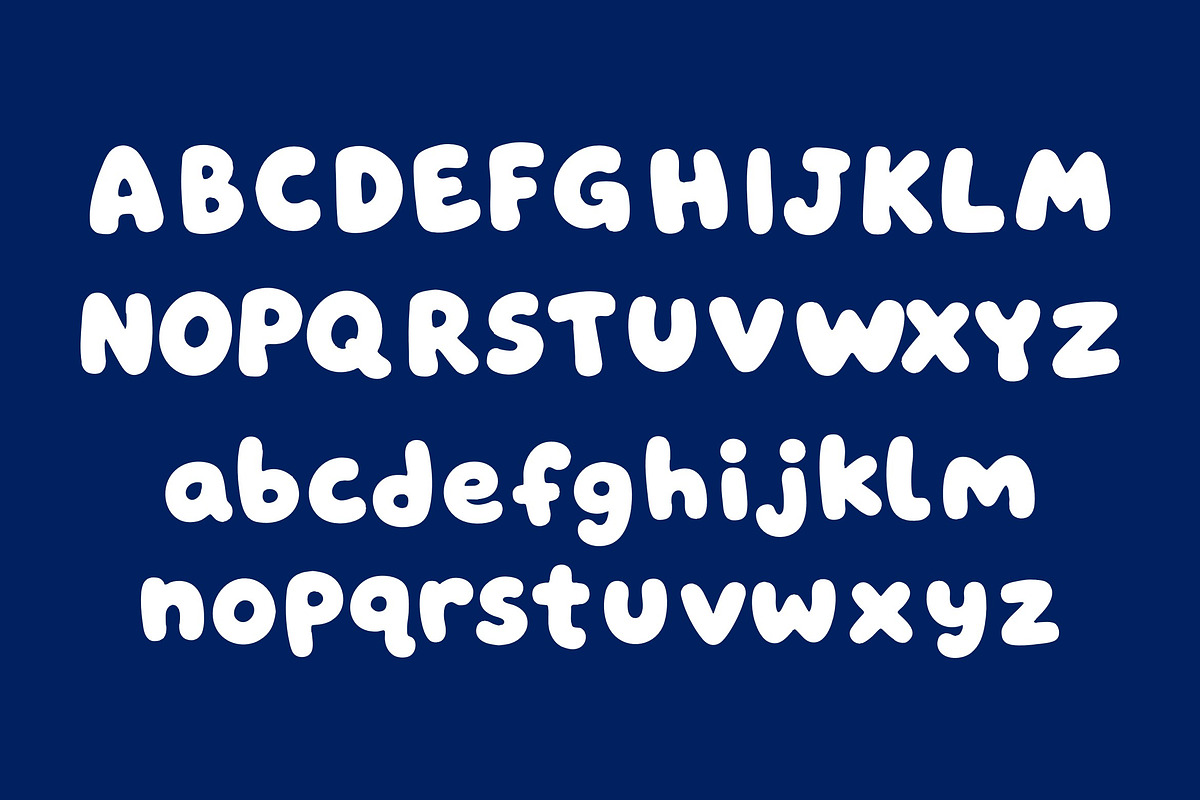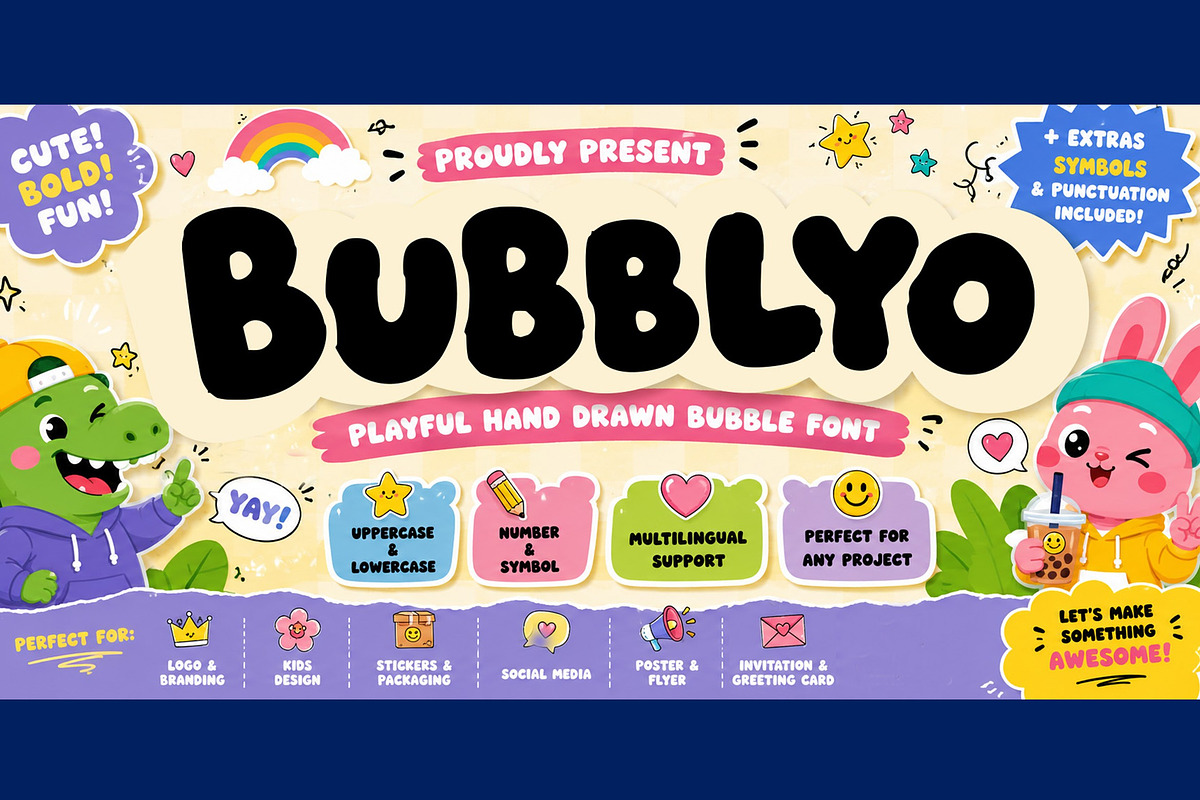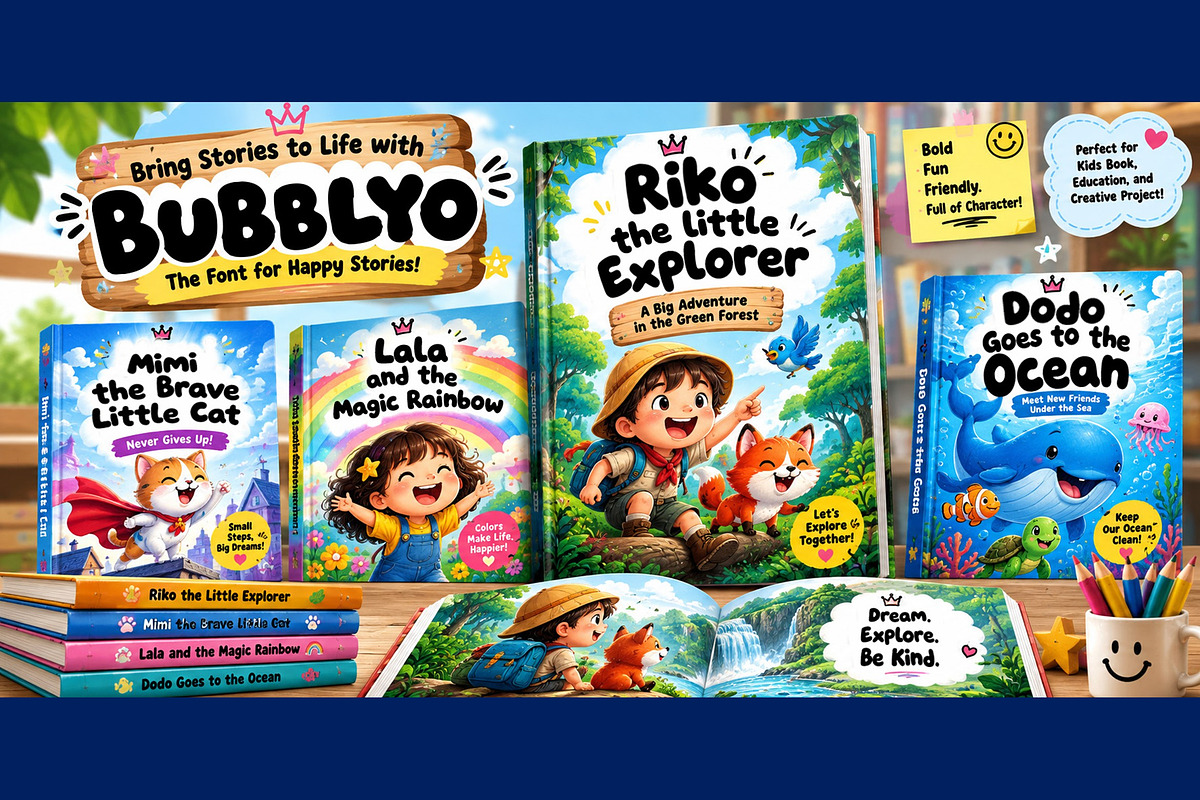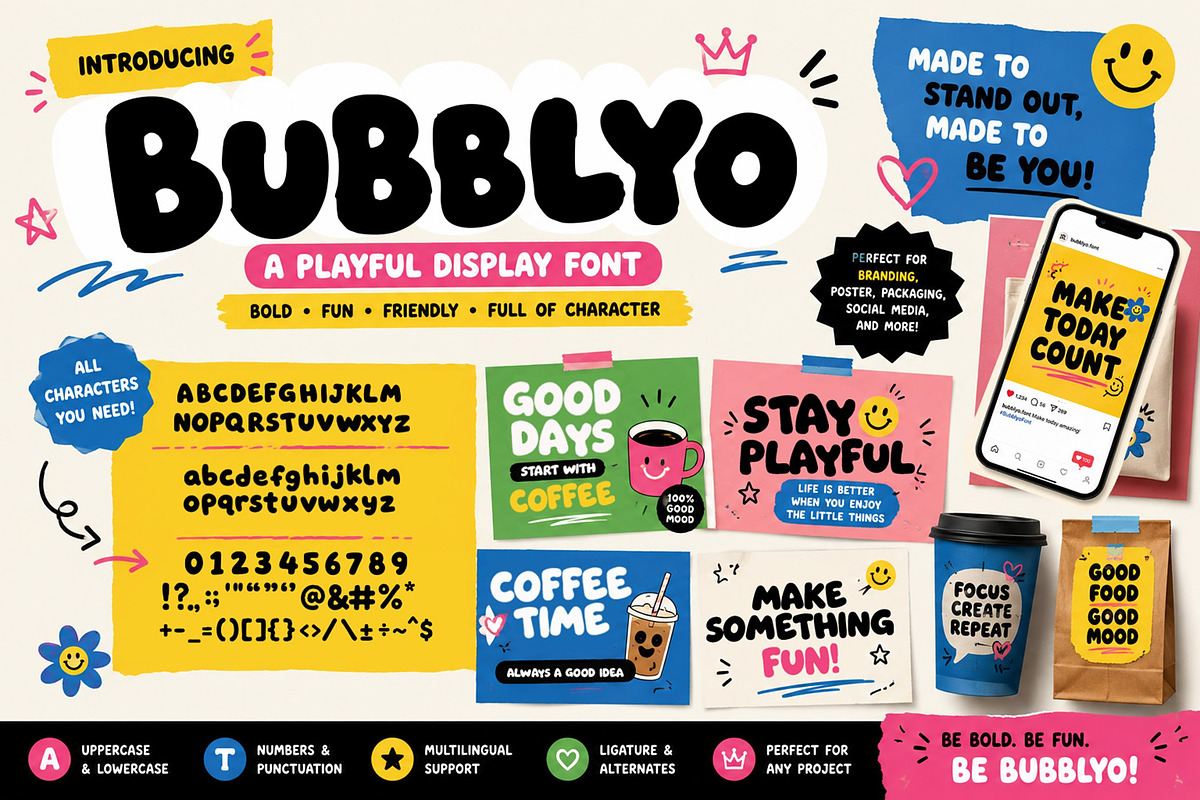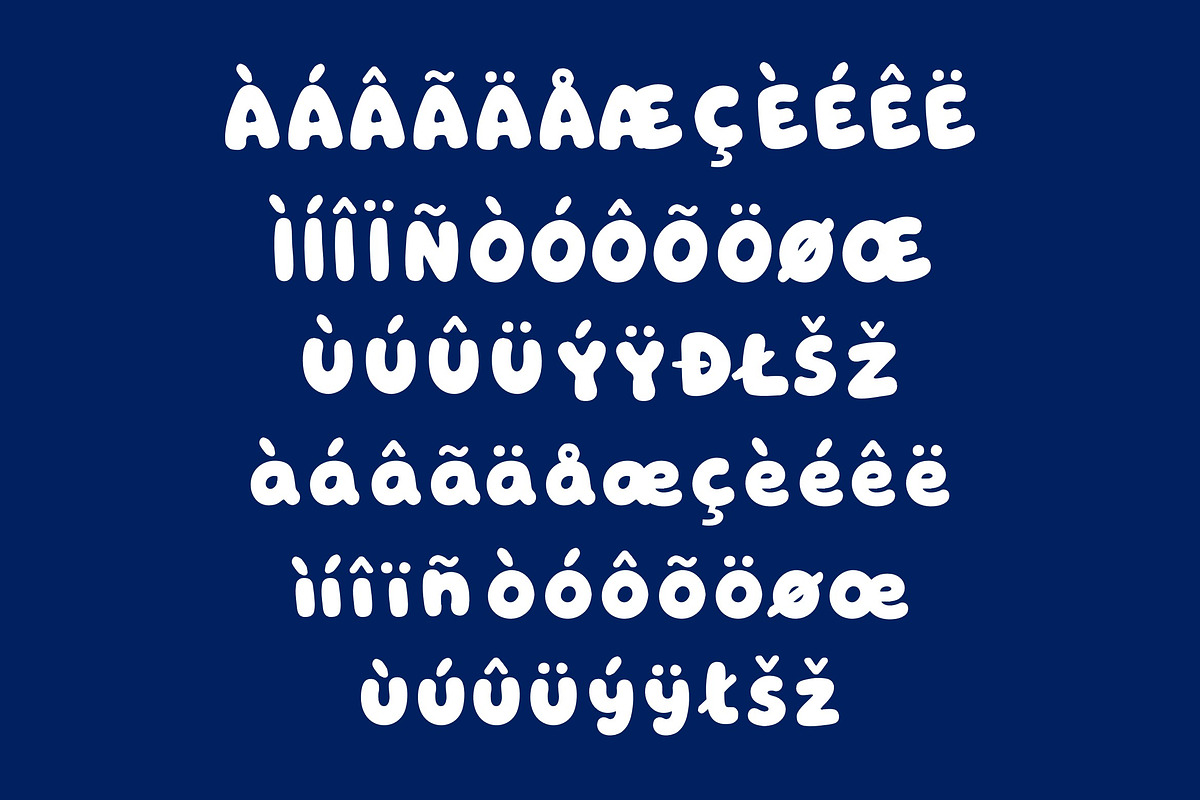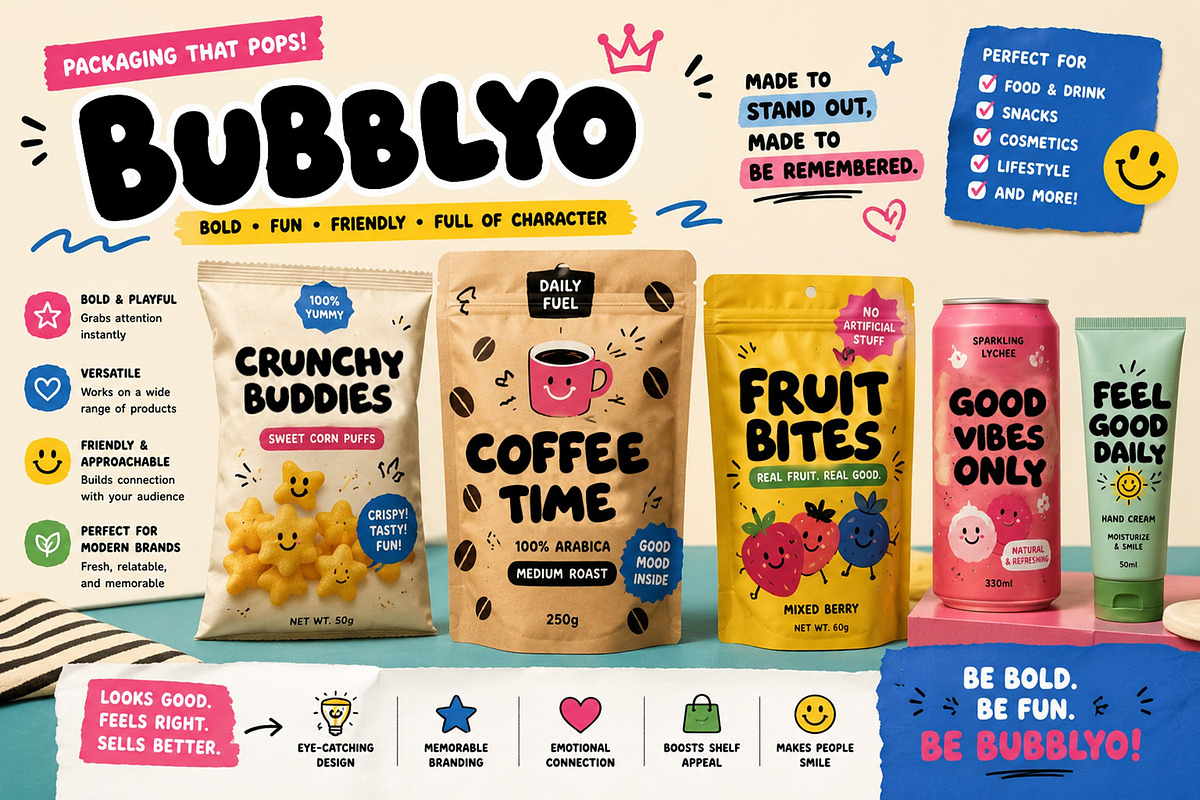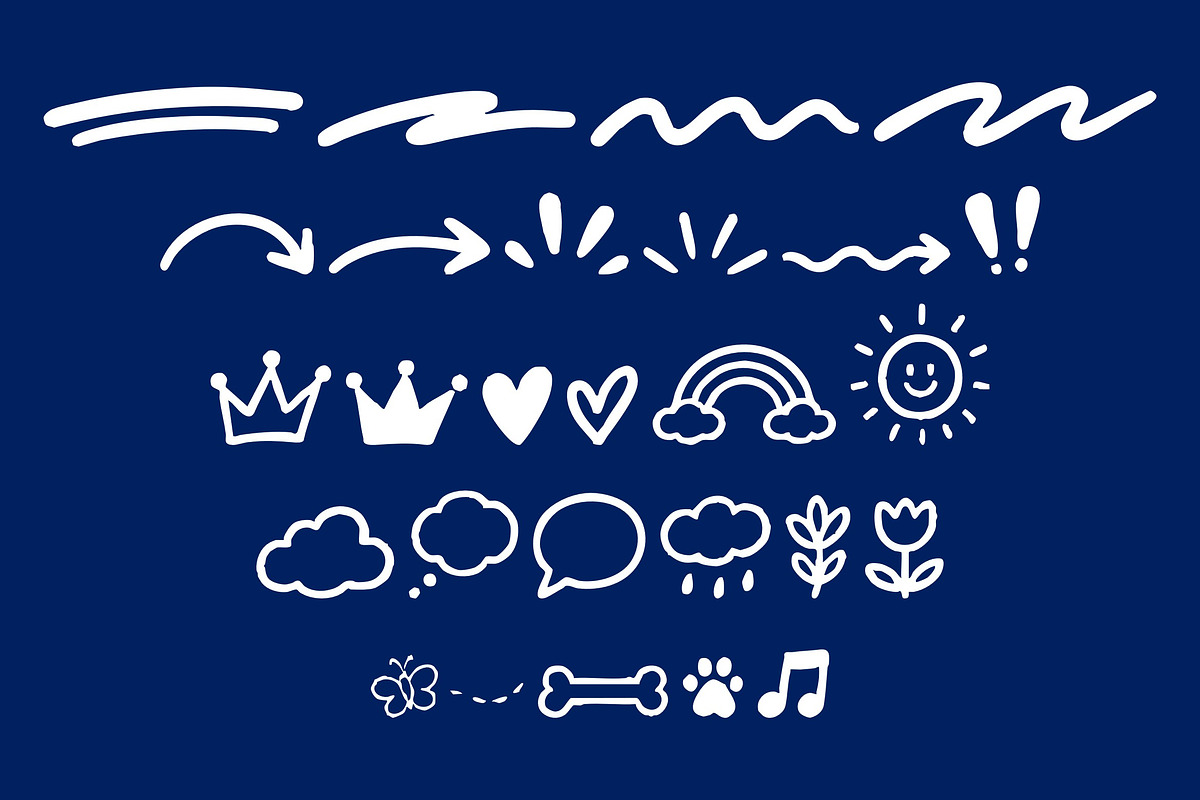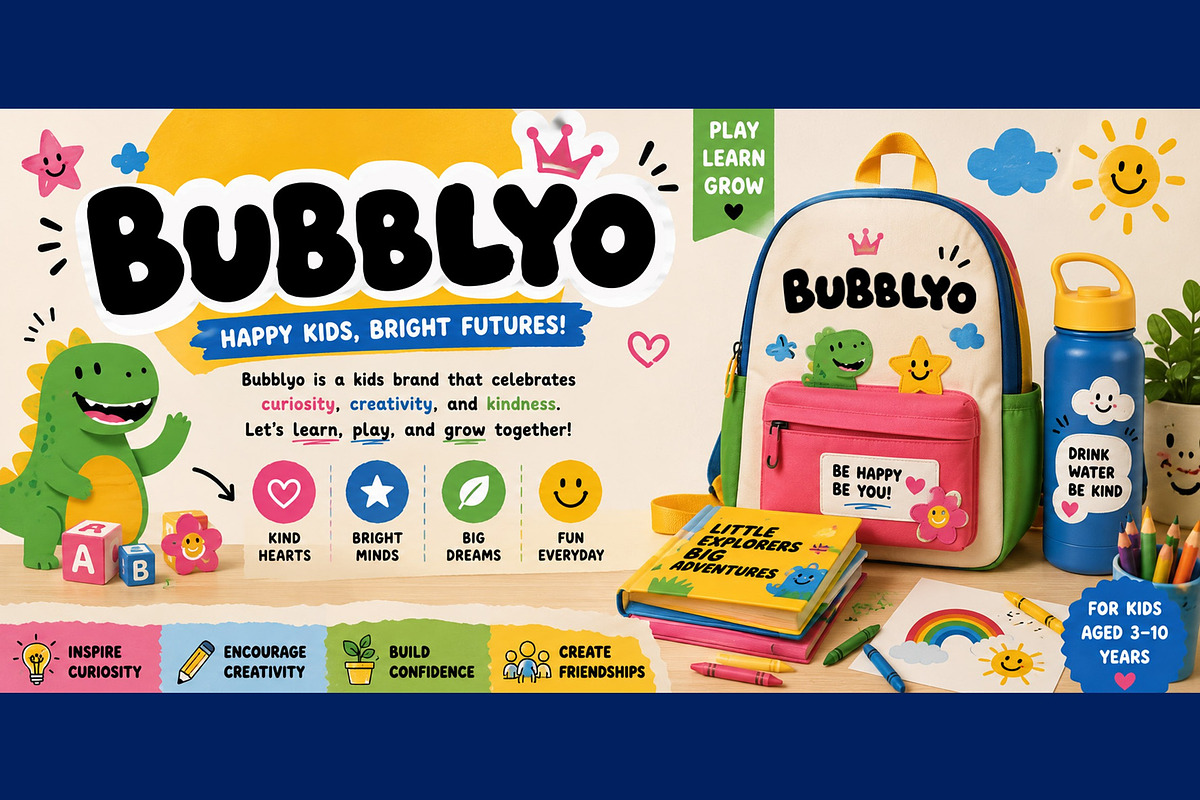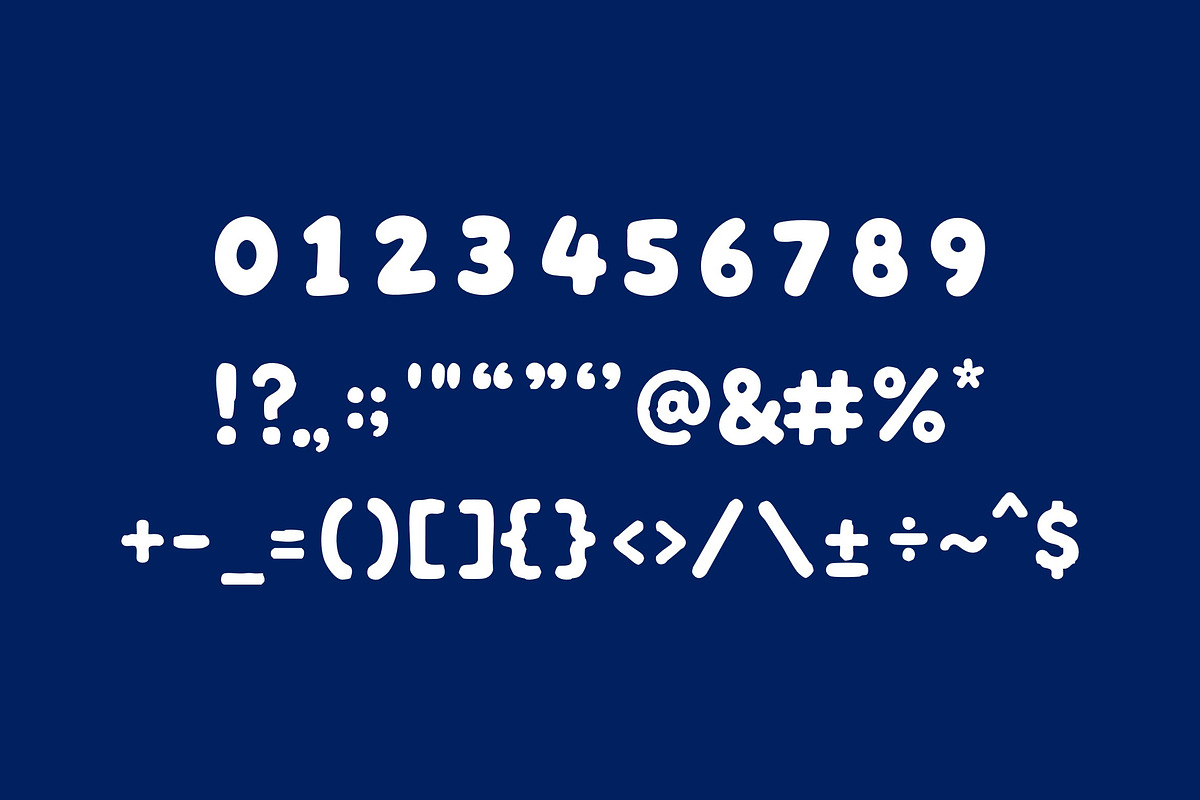
Bubblyo
Bubblyo is a playful hand-drawn bubble font with chunky rounded shapes, organic curves, and charming imperfections. Designed to bring a fun, friendly, and youthful personality to logos, branding, stickers, packaging, social media, kids' designs, posters, invitations, and creative projects.